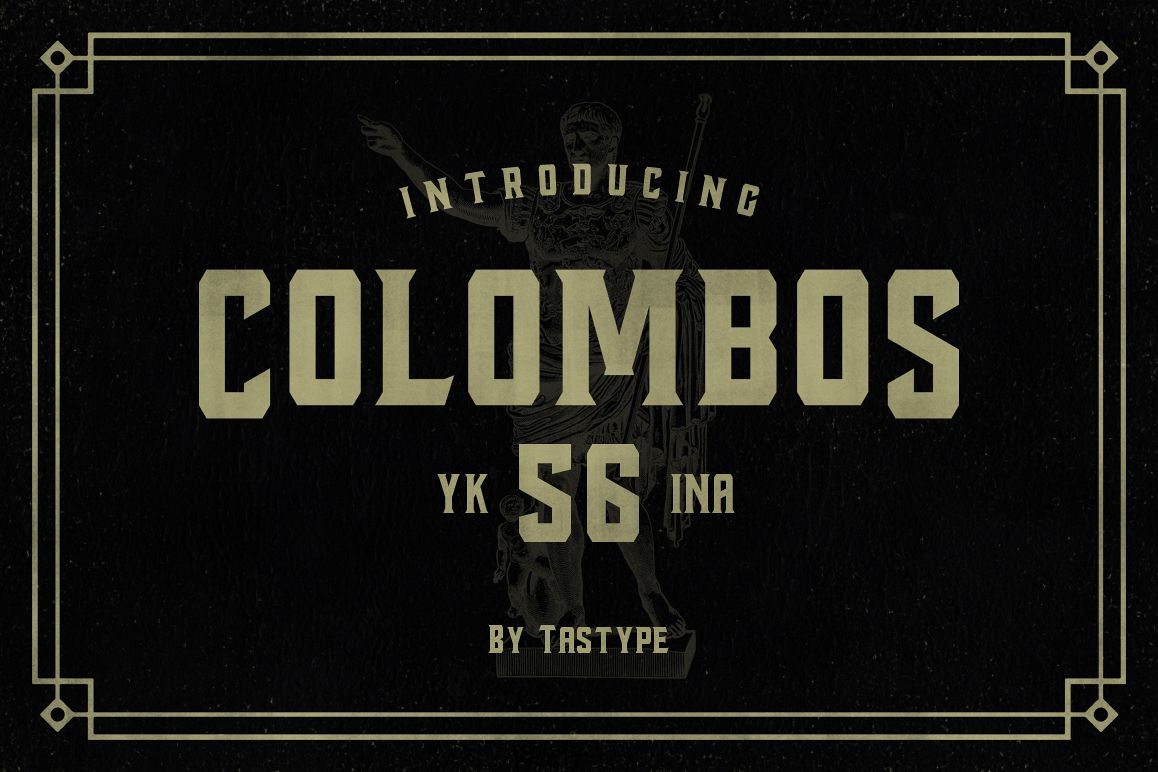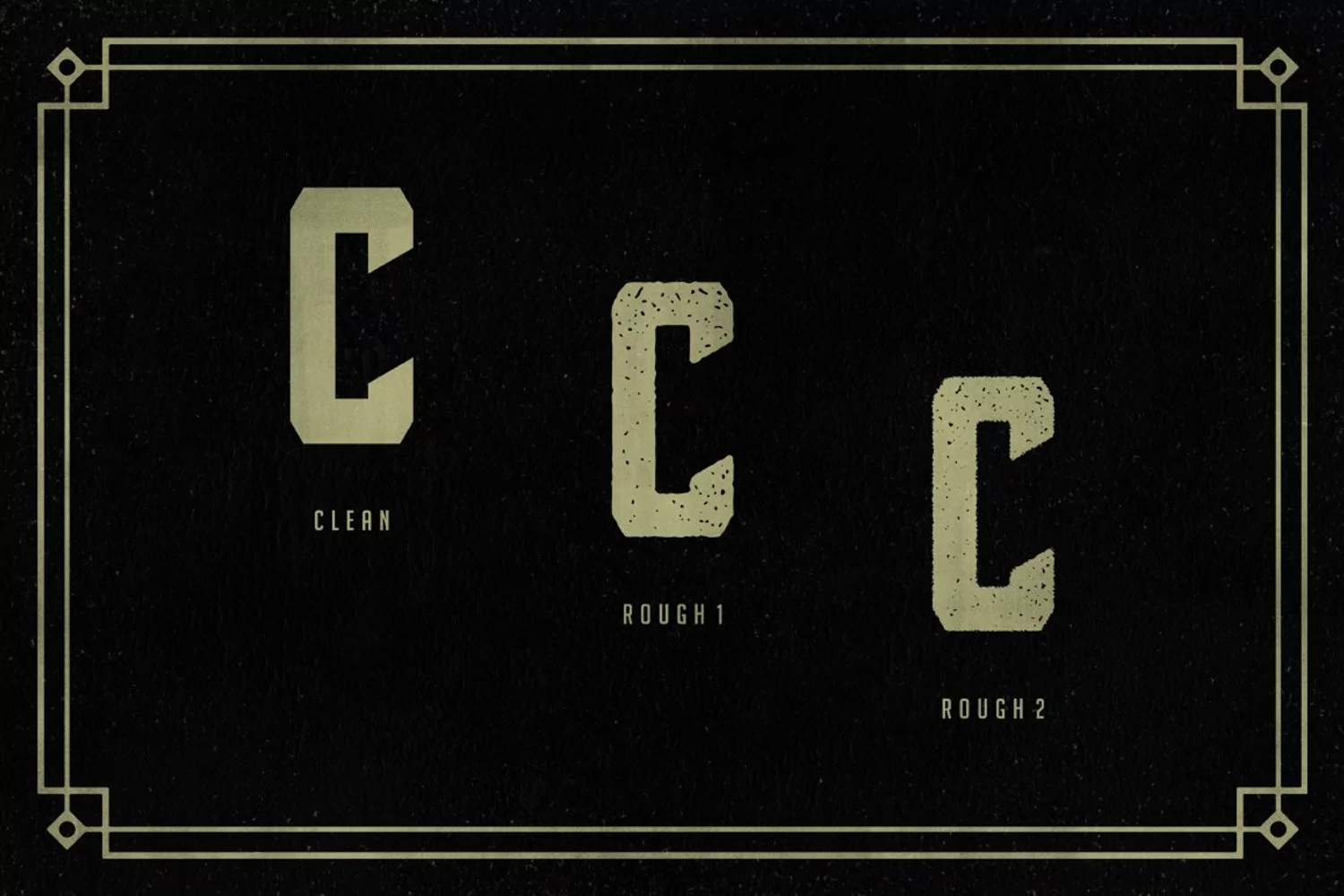
Colombos Font
Introducing the new Colombos Typeface, another display serif font
It is a great idea to use it for logos, inspirational quotes, t-shirt graphics, typography art, apparel, labels, badges, posters,business cards, stylized wedding invitations, prints, signs, emblems, book cover designs headlines, titles, etc.